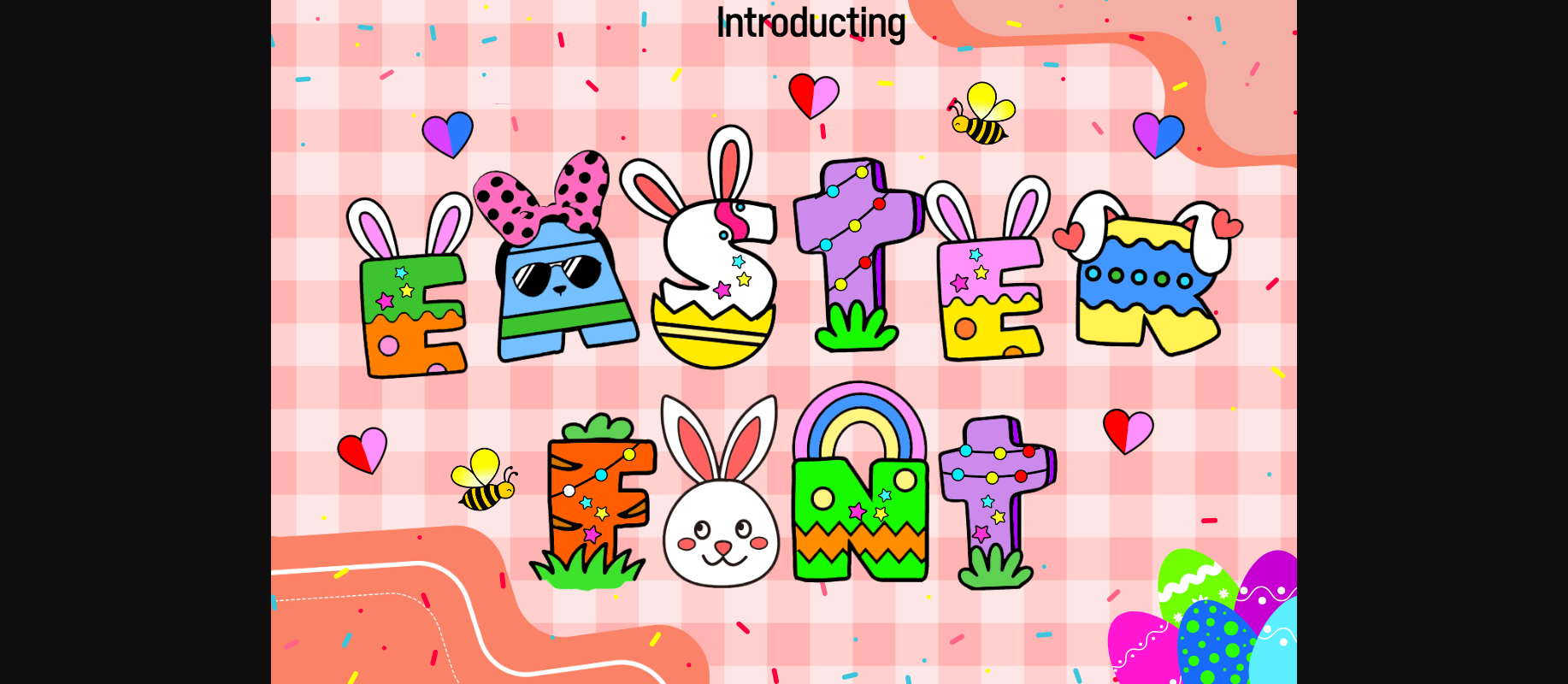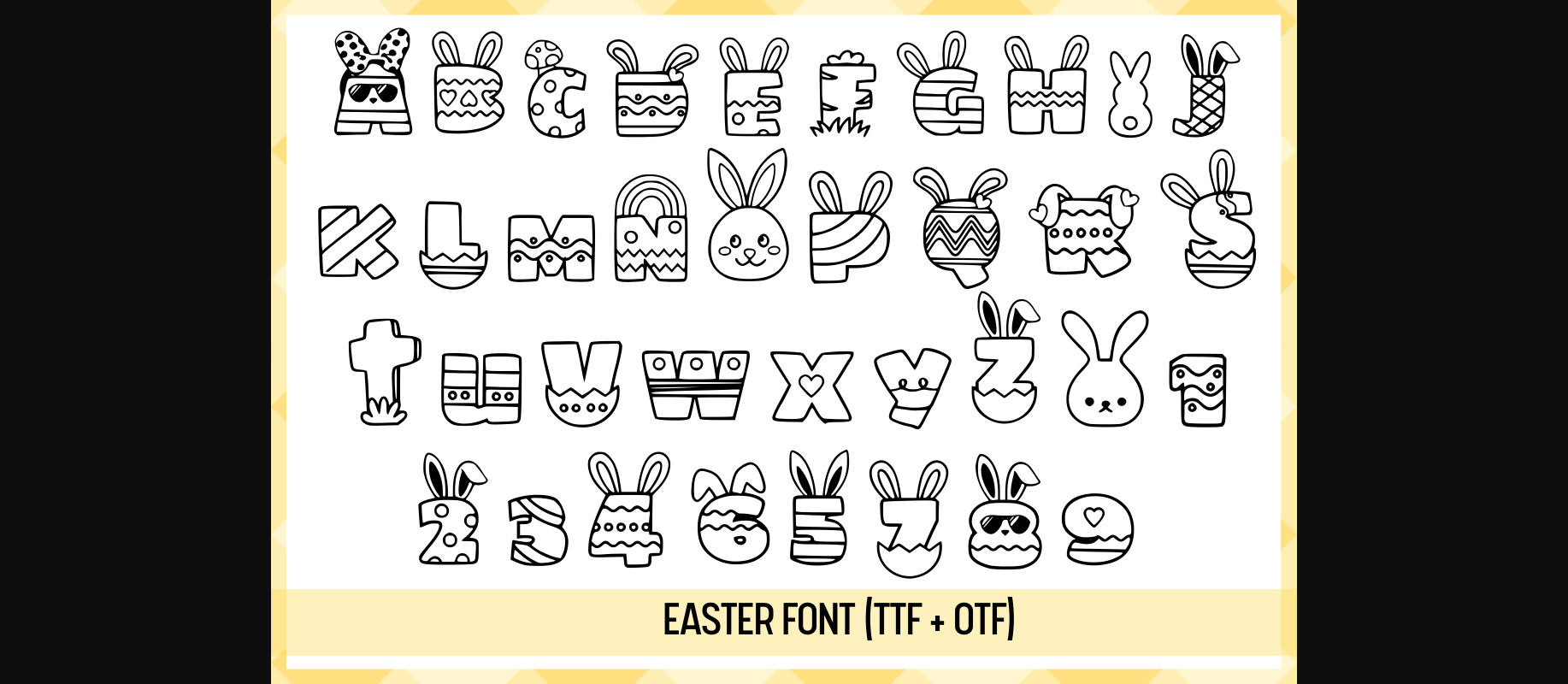
About Easter Font
Easter is a whimsical and playful typeface perfect for Easter-themed designs. With its charming loops and cheerful vibes, it embodies the joy and spirit of the holiday. Ideal for greeting cards, invitations, posters, and other festive projects, Easter font adds a delightful touch to any design.